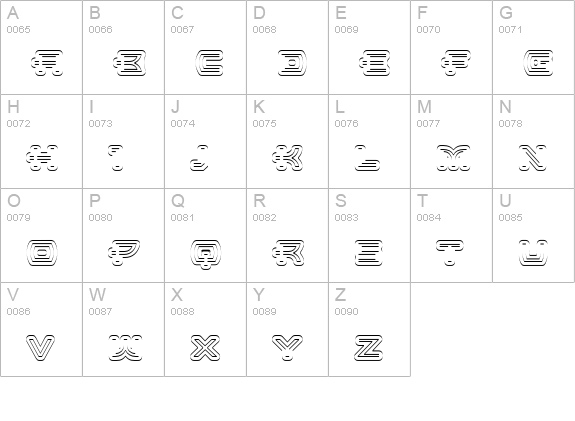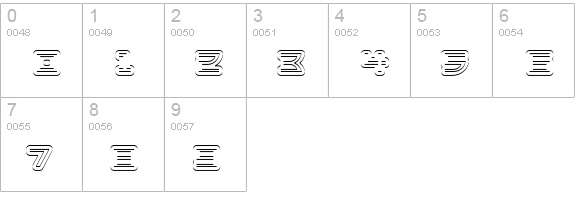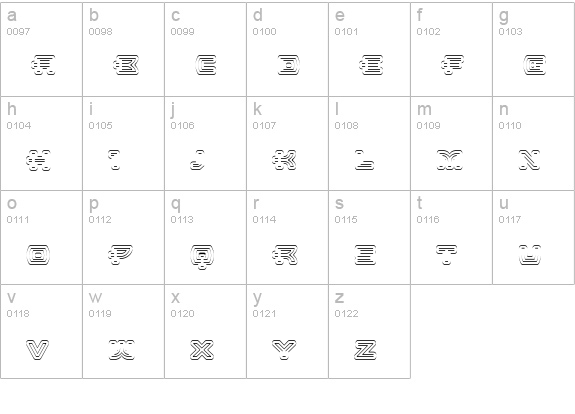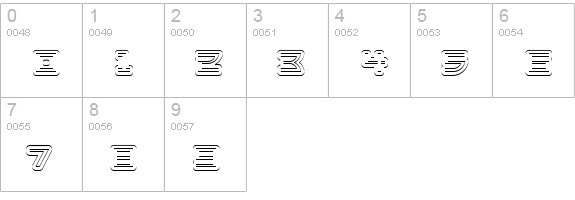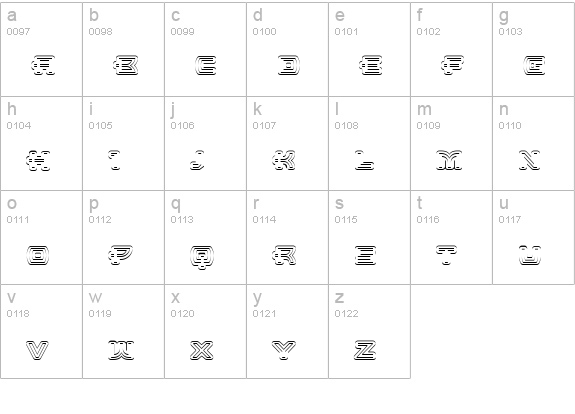
Introducing UltraBronzo-Fineline, a stunningly elegant font that exudes sophistication and style. With its delicate and intricate lines, this font is perfect for adding a touch of luxury to any project. UltraBronzo-Fineline is designed with meticulous attention to detail, ensuring each character is beautifully crafted and visually captivating. Its slender strokes and slender curves create a harmonious balance, making it truly stand out among other fonts. This font is not only visually appealing but also versatile, making it suitable for a wide range of applications. Whether you're designing a logo, creating a wedding invitation, or crafting a magazine layout, UltraBronzo-Fineline will effortlessly elevate your design to new heights. And the best part? UltraBronzo-Fineline is completely free! That's right, this exquisite font is freely available to download at FontsMarket.com. Now, you can add a touch of elegance to your projects without breaking the bank. So, why wait? Download UltraBronzo-Fineline today and unlock the potential of this beautiful font. Elevate your designs and make a lasting impression with the timeless beauty of UltraBronzo-Fineline.